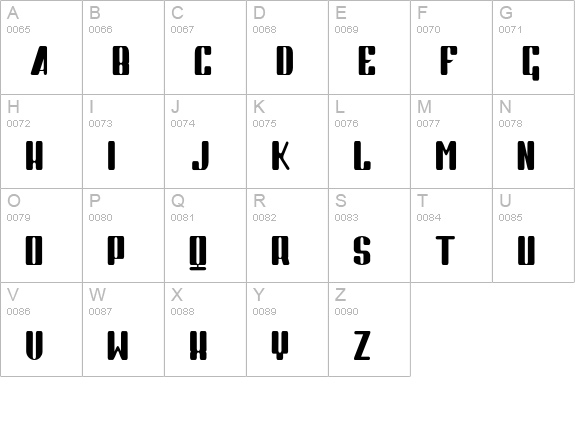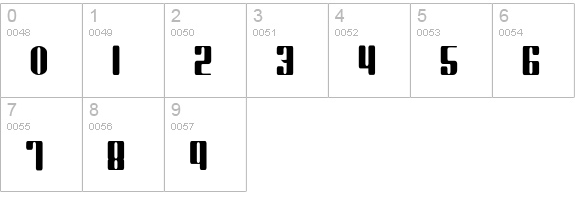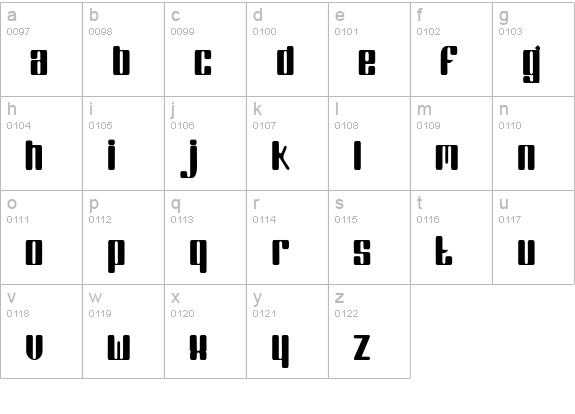
Kode Font Details
Introducing Kode font, a modern and stylish typeface designed to elevate your projects to new heights. With its sleek lines and contemporary aesthetic, Kode exudes a sense of sophistication and professionalism. This versatile font is perfect for a wide range of design applications, from logos and branding to web design and print materials. What's even better is that Kode font is completely free! Yes, you read that right. You can download this amazing font for free at FontsMarket.com. Don't miss out on the opportunity to add Kode font to your font library and take your designs to the next level. Download it today and start creating stunning visuals that will leave a lasting impression.